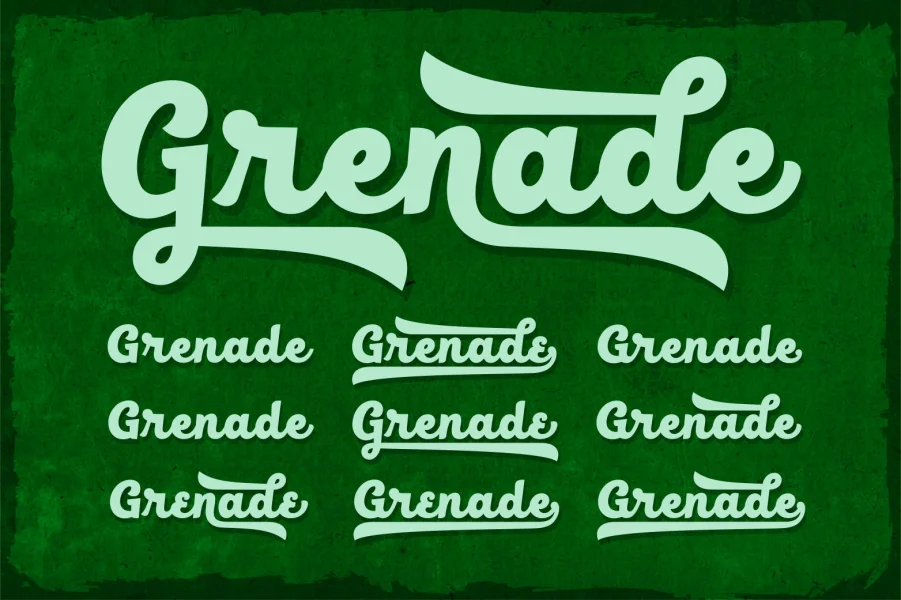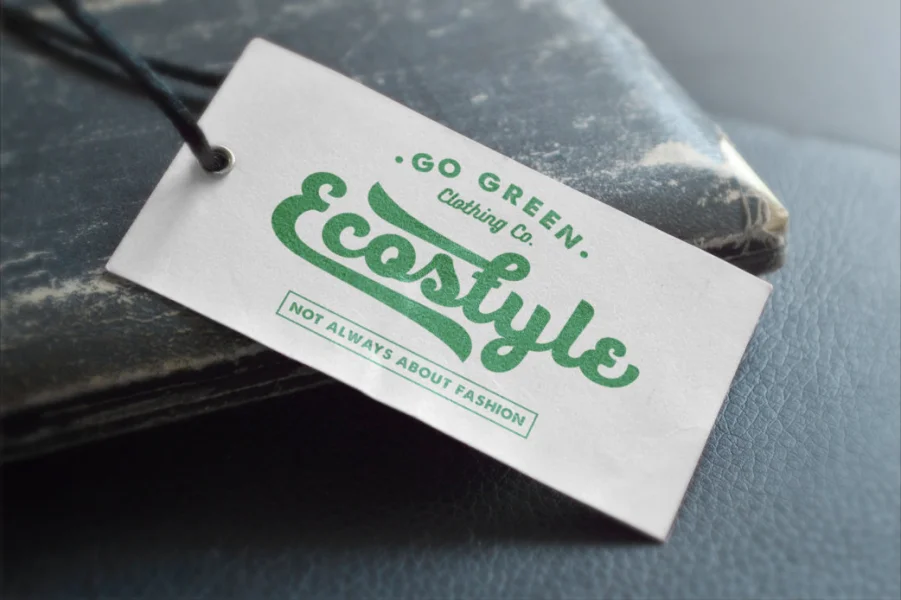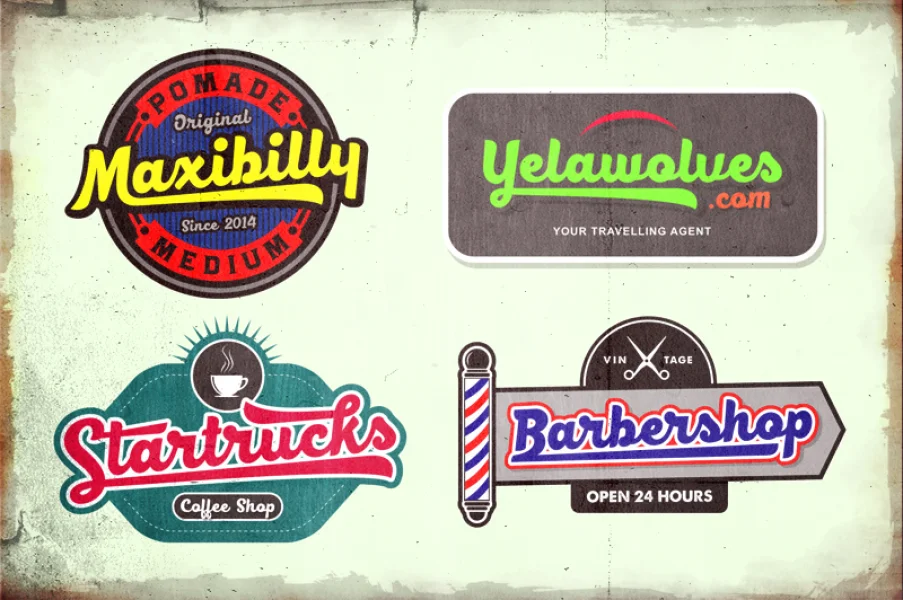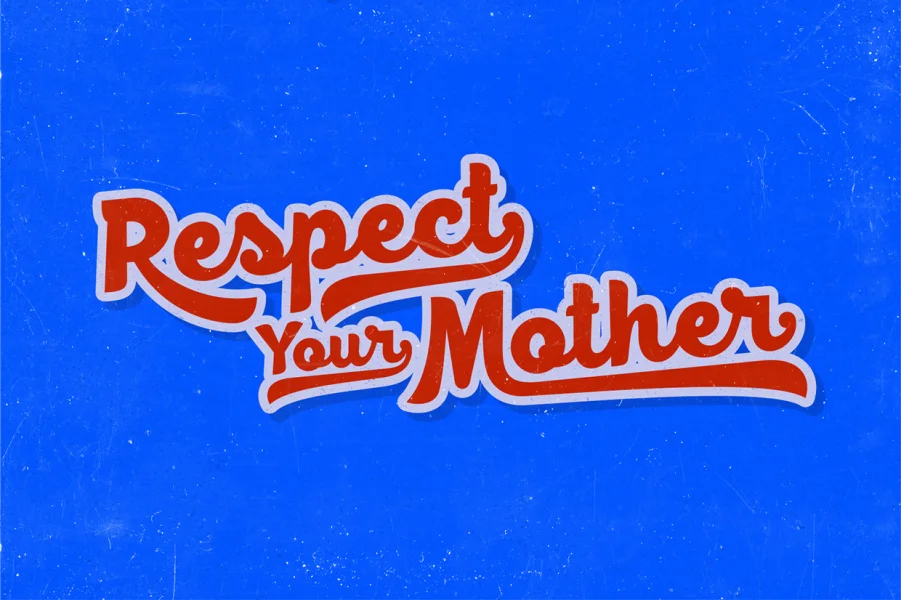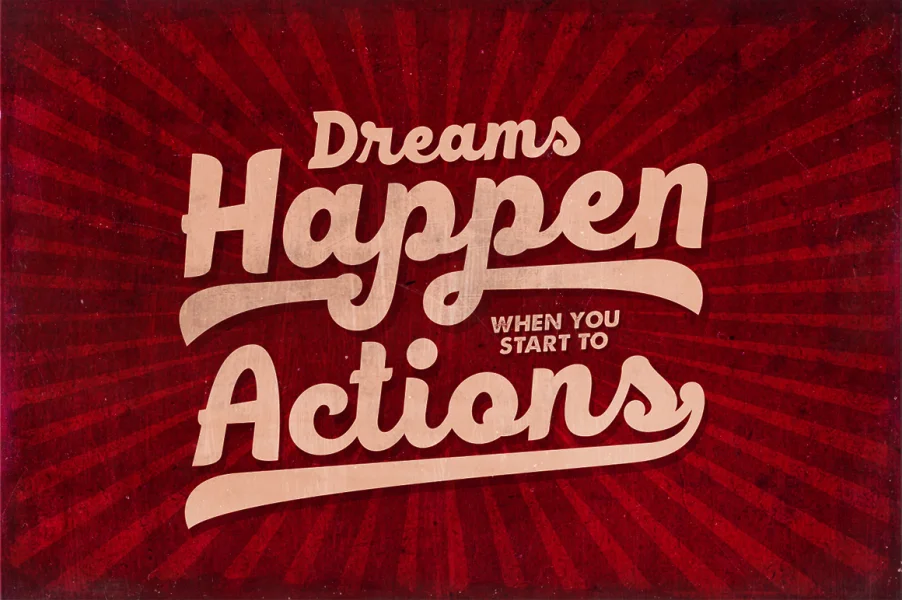
Introducing The Blackfat Script - A new bold retro script font.
This is a stripped demo version, free for personal use. The full commercial version available at Creative Market consists of over 360 glyphs with lots of alternates that can be played with. Best used with OpenType savvy program to discover all the alternate characters from the glyphs palette. It's suitable for logotype, typographic poster, t-shirt, insignia or a vintage packaging design.